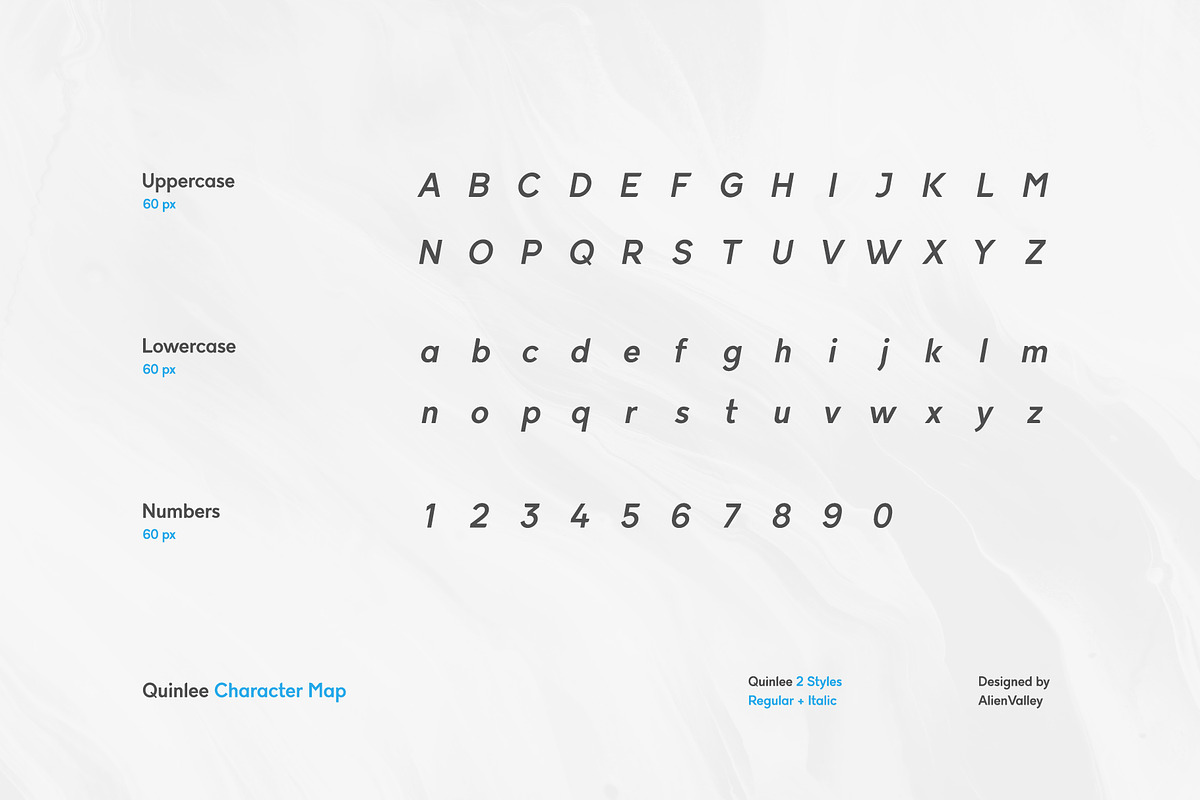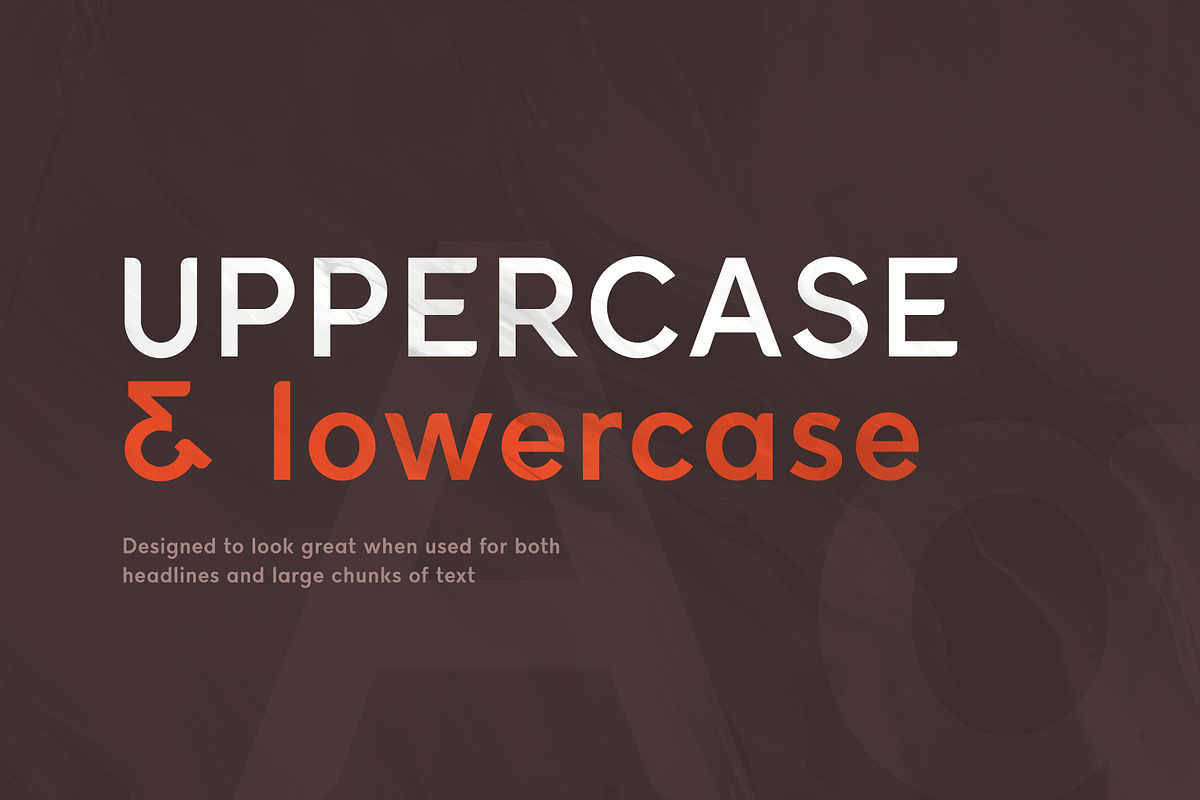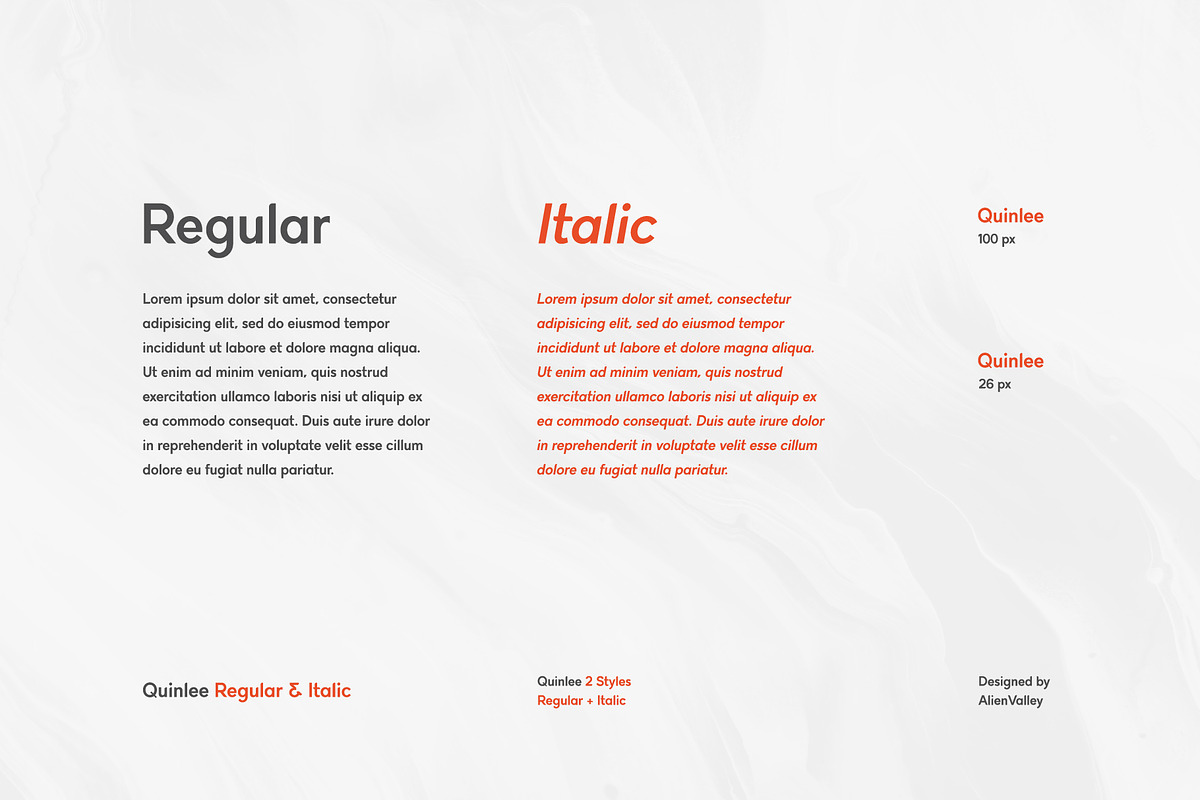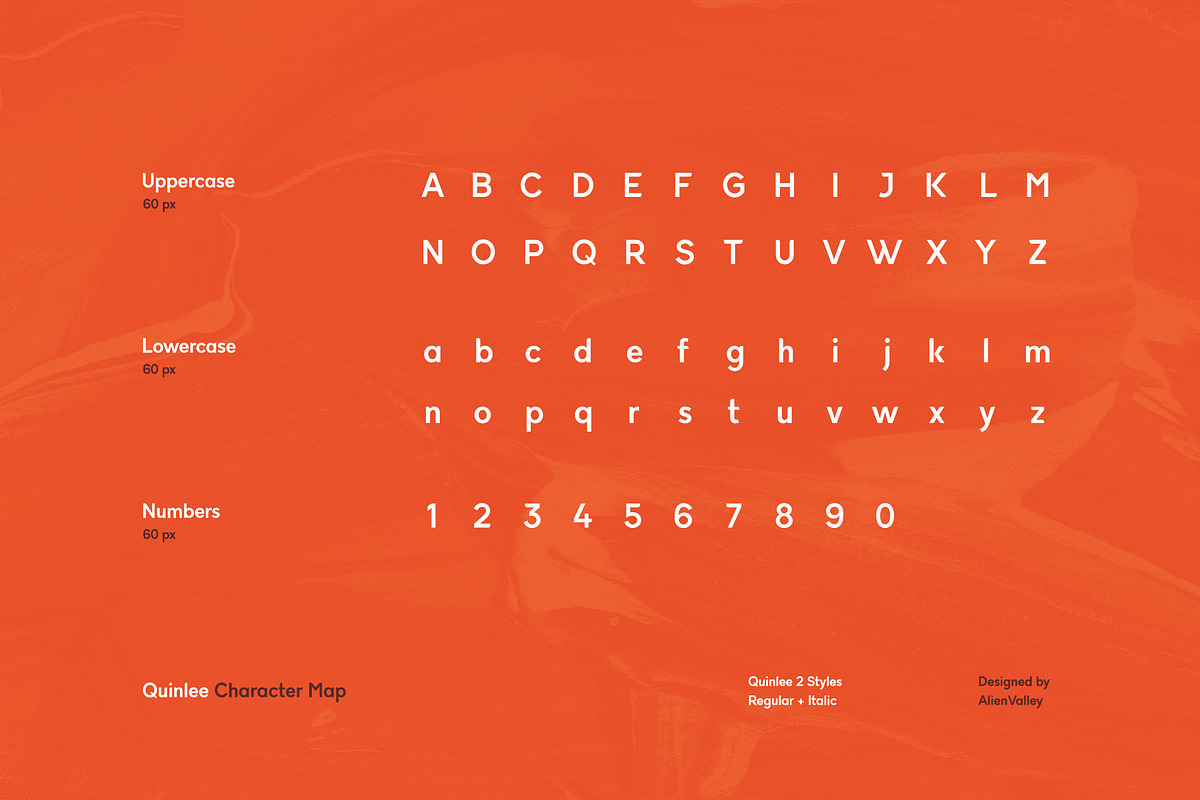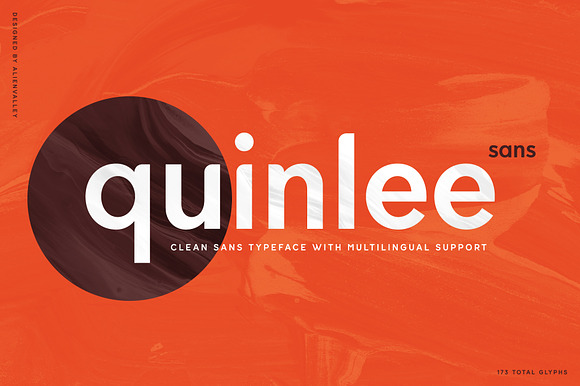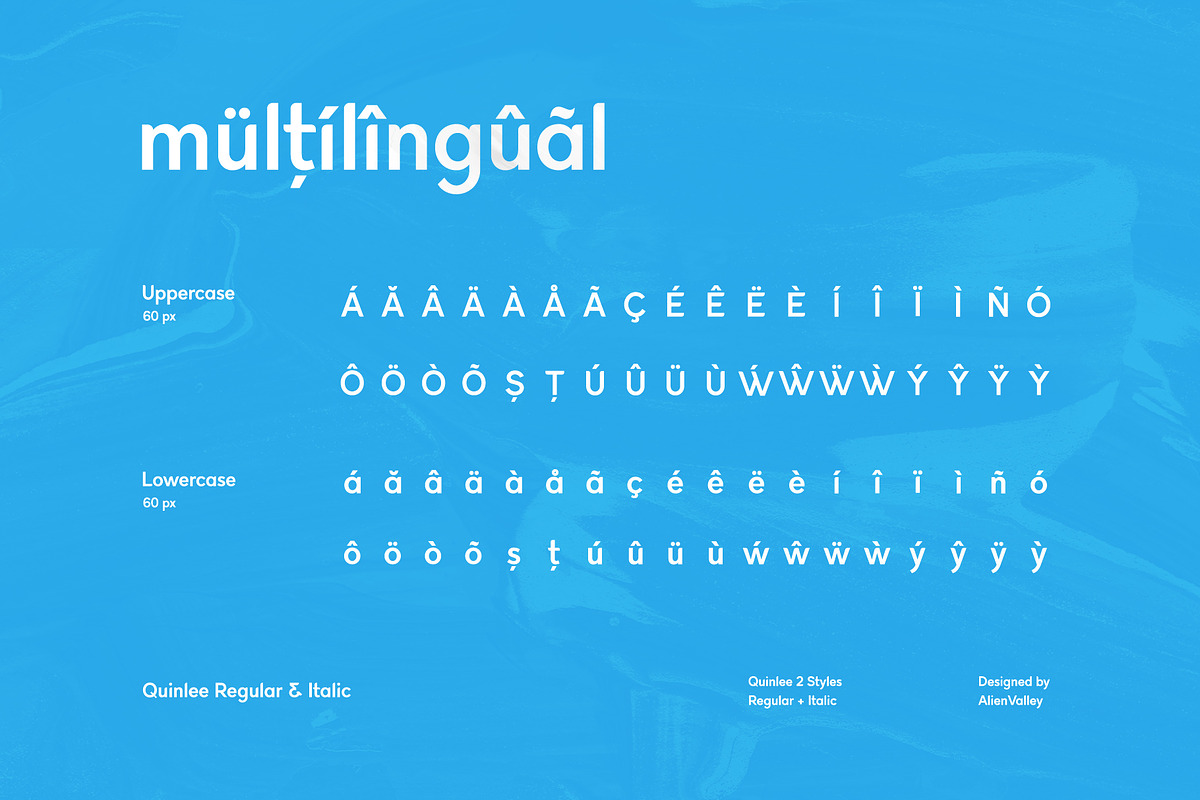
Quinlee - Versatile Sans Serif Font
Quinlee is a versatile sans-serif typeface with both uppercase and lowercase letters and featuring extensive multilingual support. The font is designed to look good for headlines and also large chunks of text. You can use it to create documents with large amounts of text, on websites, magazines, flyers and much more!
Uppercase & Lowercase Letters
2 Styles (Regular + Italic)